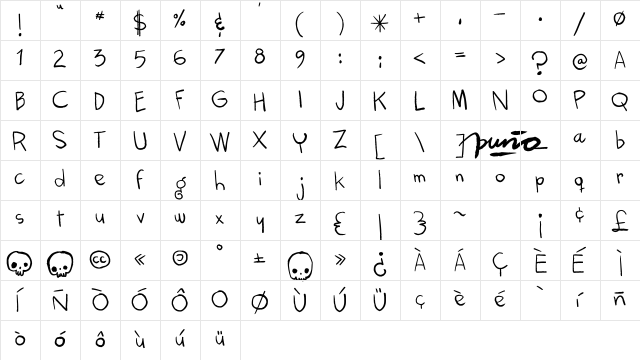
kokekoko light Regular Free Font
kokekoko light Regular
Design Context for kokekoko light
kokekoko light is a composed and adaptable typeface that performs quietly and consistently across a wide range of design contexts. Its slender proportions lend an understated elegance to any composition.